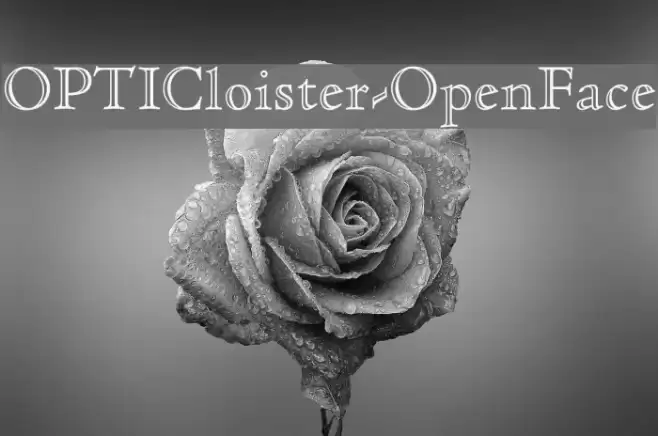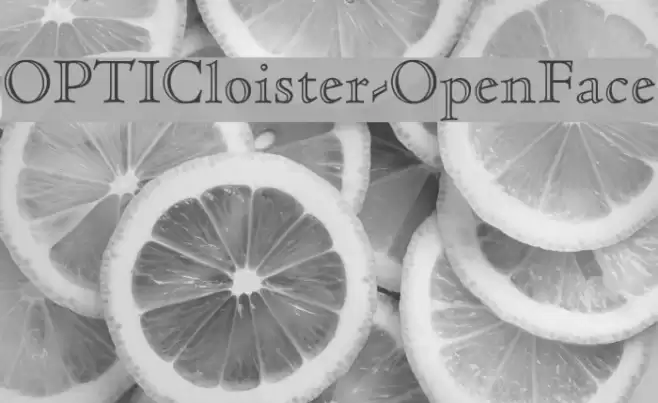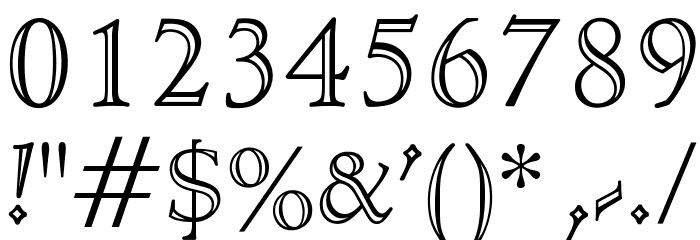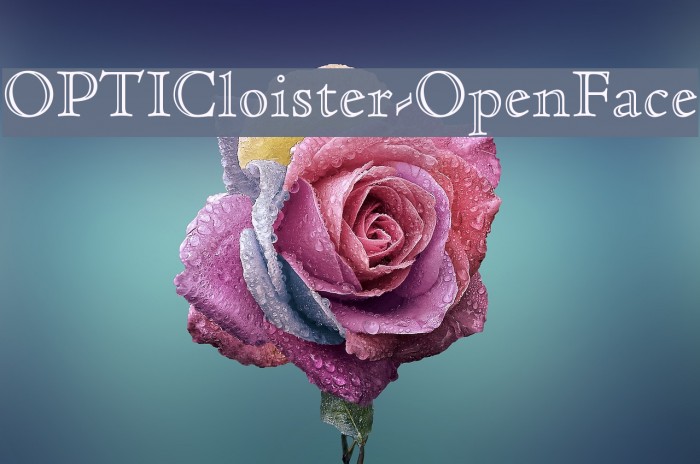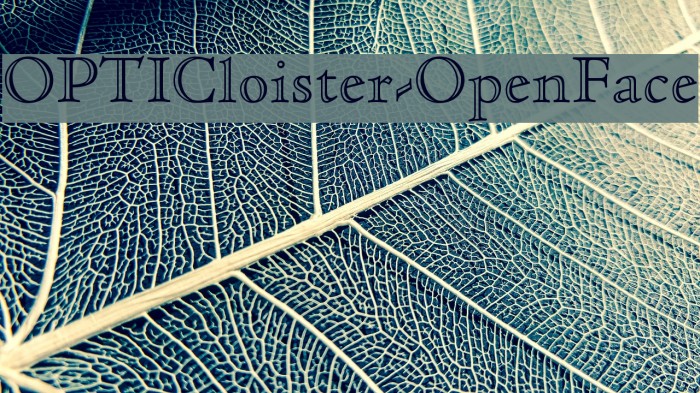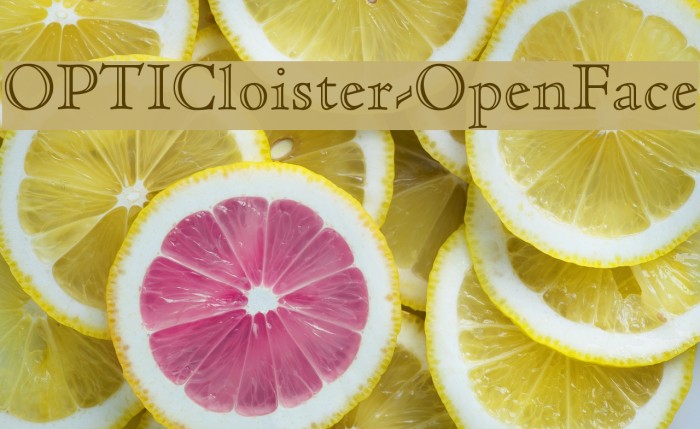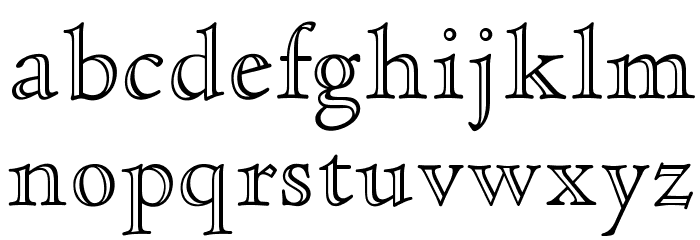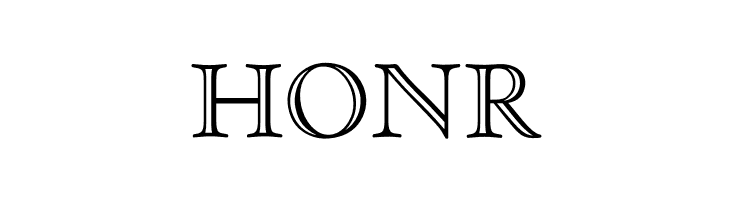
OPTICloister-OpenFace Font
OPTICloister-OpenFace Description
This font features a classic serif style with elegant, thin strokes and a high level of detail. The uppercase letters are distinguished by their sharp serifs and balanced proportions, giving them a formal and sophisticated appearance. The lowercase letters maintain a consistent style, with slightly more rounded forms that add a touch of softness to the overall design. The numerals are distinct and easy to read, with a traditional look that complements the alphabetic characters. Special characters are well-integrated, maintaining the font's cohesive aesthetic. This font's intricate design and historical feel make it suitable for projects that require a touch of elegance and tradition.
A classic serif font with elegant, thin strokes and a sophisticated appearance from Uncategorized fonts.
- Proposed Projects: Ideal for formal invitations, historical documents, book covers, and branding that requires a traditional touch.
- Overall Style: Classic